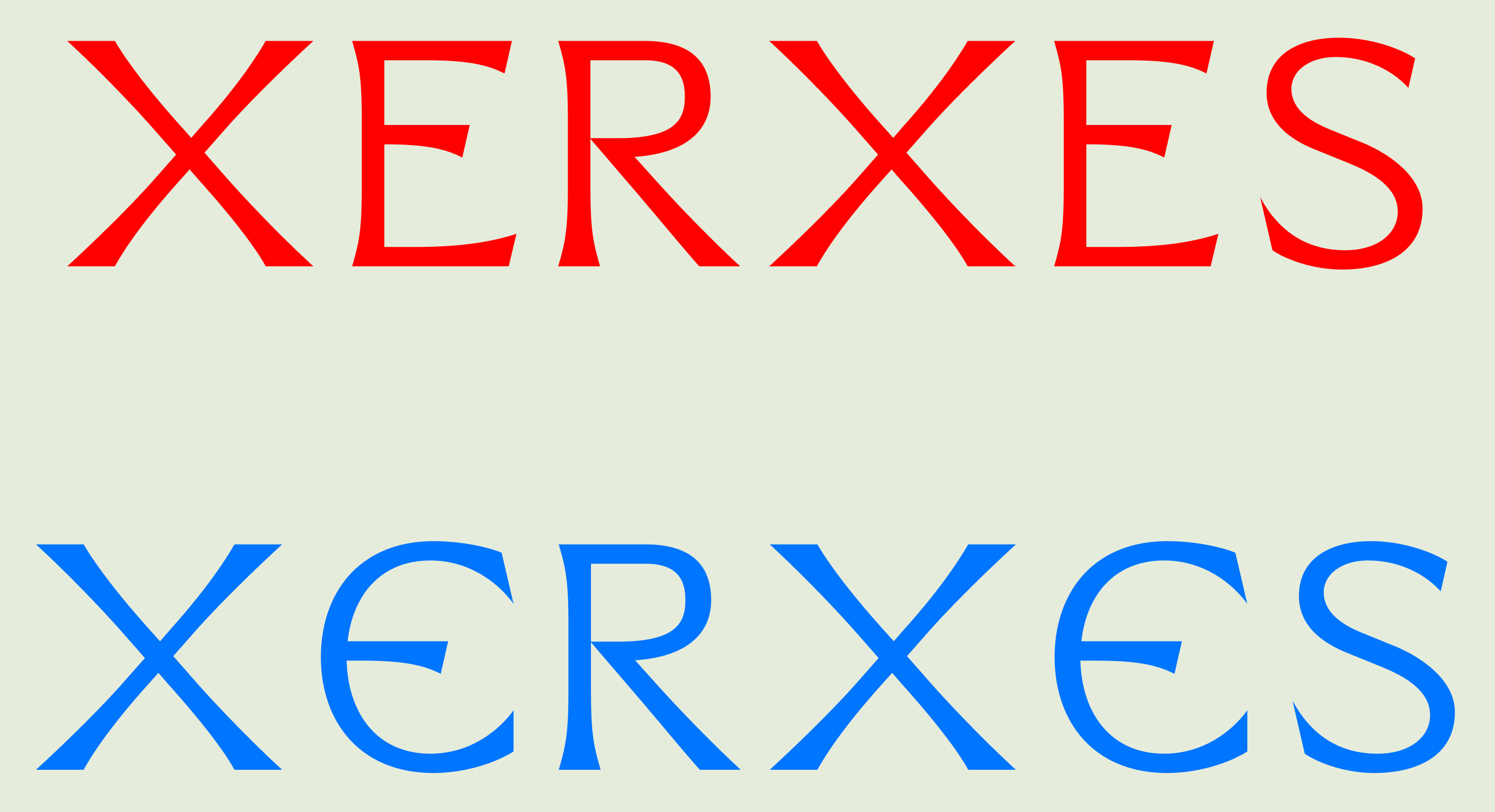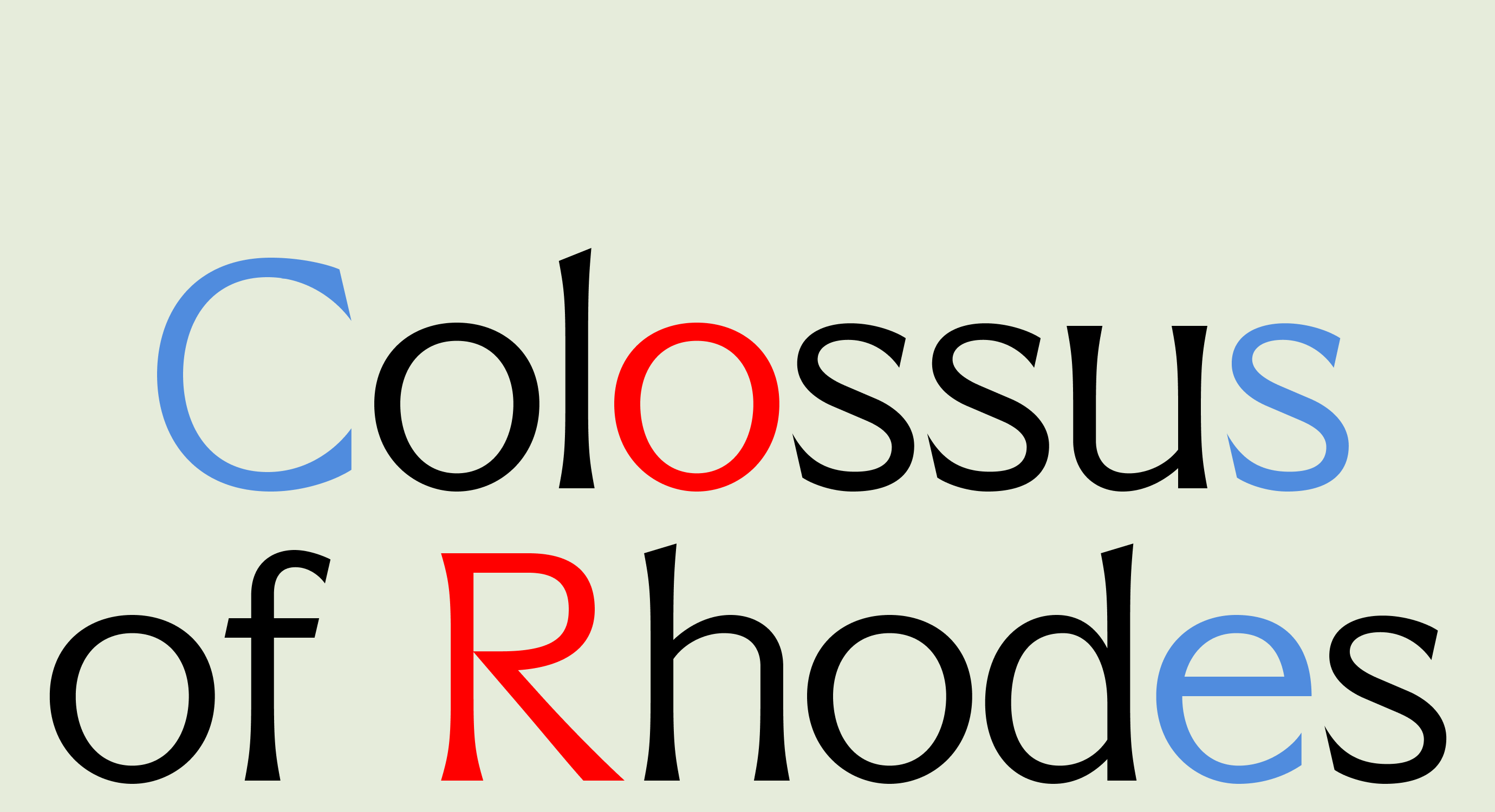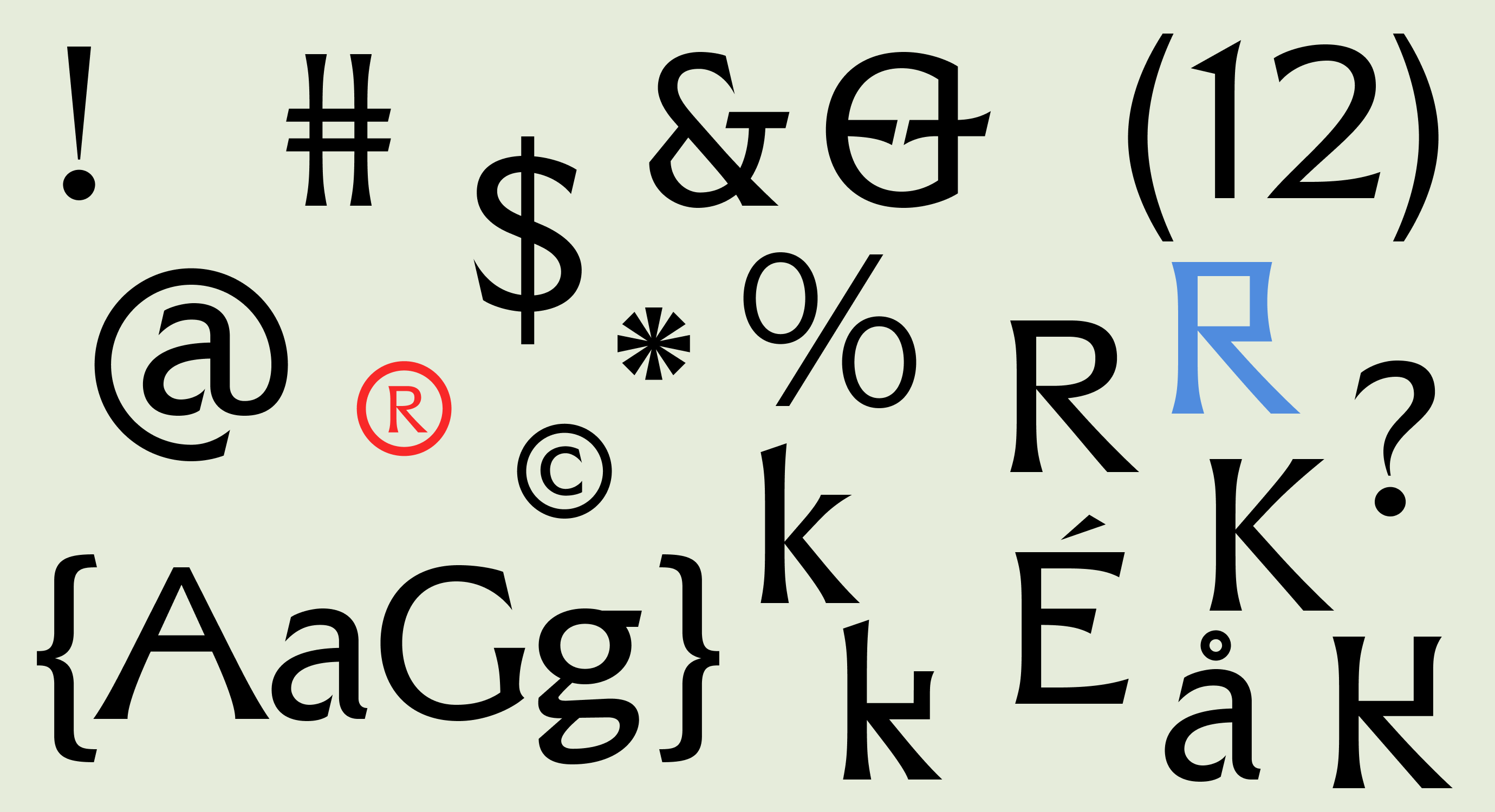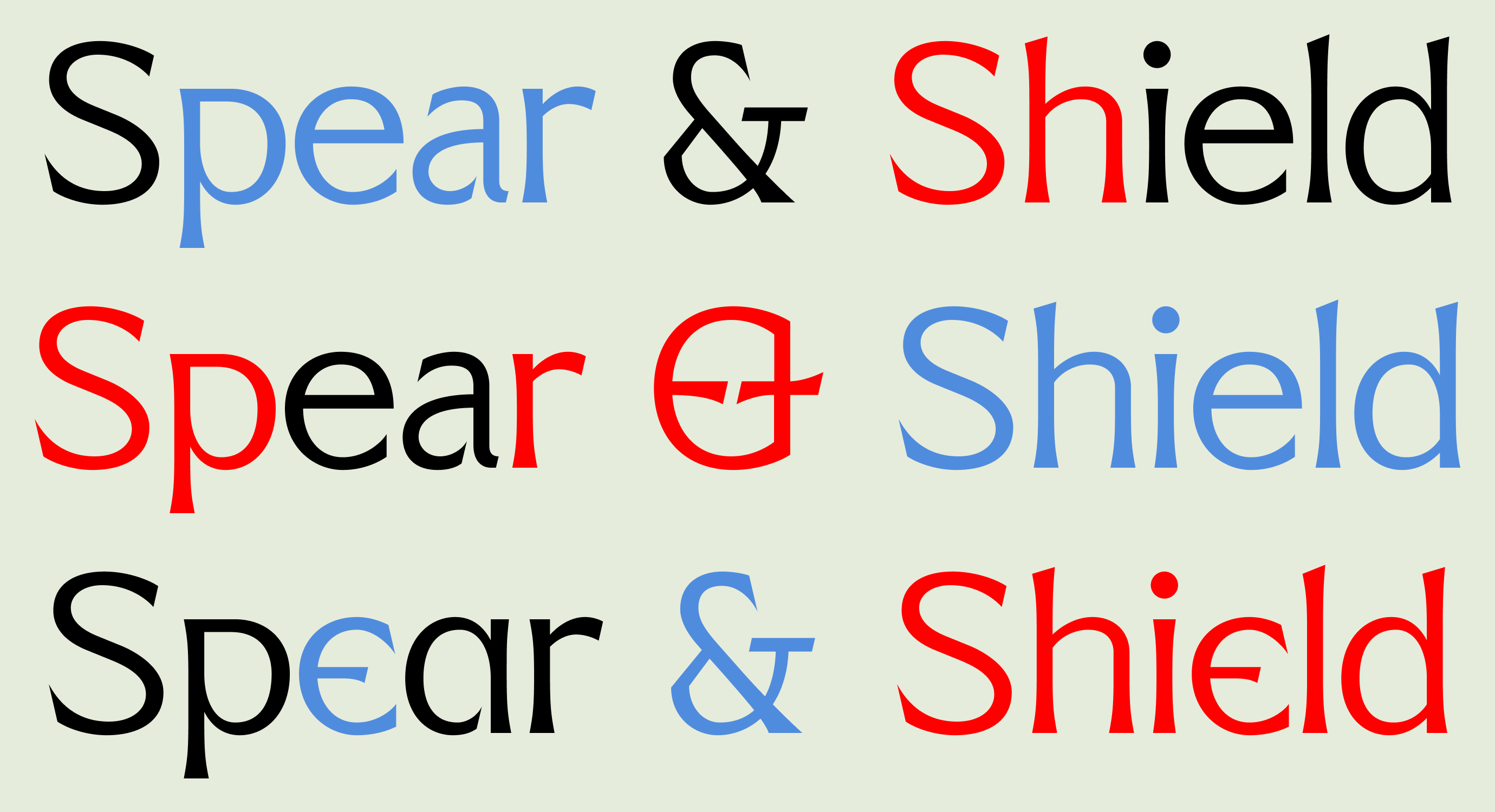
AF Stelios
AF Stelios is battle-hardened from years of combat experience, possessing unmatched intensity. With its flared sans-serif features, Stelios’s sharp edges slice through page and pixel alike, as if carving into marble. If you’re looking for a typeface to accompany you on your design warpath, look no further than this bellicose beauty.